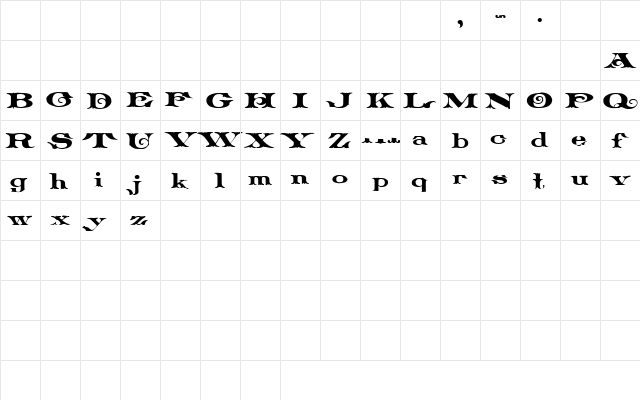
Plowright Regular
Design Context for Plowright Typeface
Plowright is a composed and adaptable typeface that performs quietly and consistently across a wide range of design contexts.